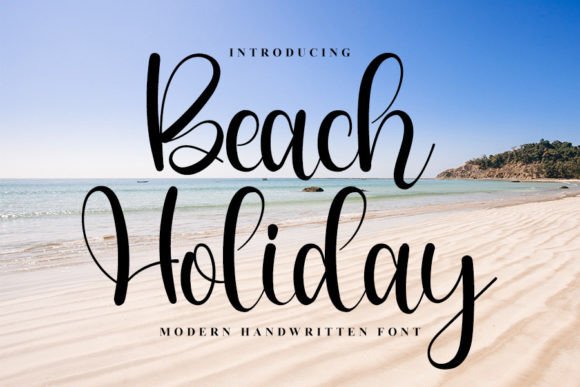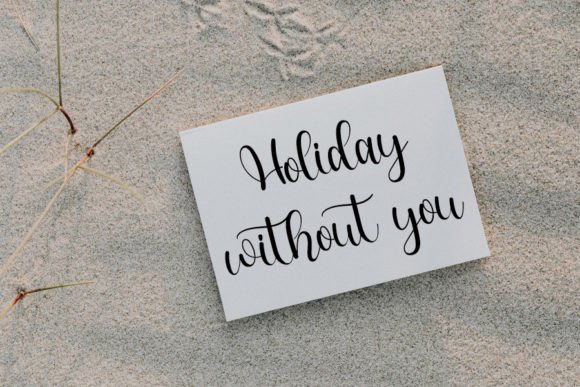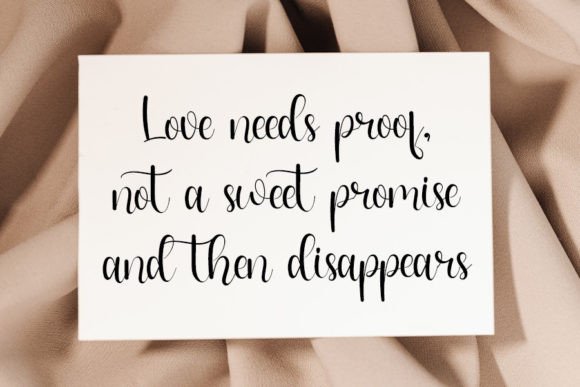
Beach Holiday Font : A Neat Handwritten Font for Timeless Elegance
Introducing Beach Holiday – a beautifully crafted handwritten font that exudes elegance and charm. This versatile typeface is perfect for a wide range of creative projects, allowing you to elevate your designs with its unique style.
Key Features of Beach Holiday Font
- Elegant Handwritten Style: Adds sophistication and authenticity to your designs
- Timeless Appeal: Captures a classic charm that resonates with audiences
- Versatile Application: Ideal for branding, invitations, posters, and more
Perfect for Multiple Design Projects
Beach Holiday’s adaptability makes it an excellent choice for:
- Branding materials that reflect your unique identity
- Elegant invitations that set the tone for special occasions
- Eye-catching posters that capture attention
- Social media graphics that engage followers
- Personal stationery and greeting cards
Enhancing Your Creative Vision
With Beach Holiday, you gain access to a font that elevates your projects to new heights of beauty and sophistication. Its handwritten elegance ensures that your content stands out, making a lasting impression on your audience.
Digital and Print Versatility
Whether you’re creating digital designs or print materials, Beach Holiday maintains its charm and readability. Use it for:
- Striking website headers that draw in visitors
- Memorable email marketing campaigns that resonate with recipients
- Distinctive product packaging that showcases your brand’s elegance
Customization Options
Beach Holiday offers a range of customization options, allowing you to tailor your text to perfectly match your creative vision. This flexibility empowers you to create designs that reflect your artistic preferences.
Beach Holiday is more than just a font; it’s a design asset that brings timeless elegance to your creative projects. Its unique handwritten style inspires captivating designs that leave a lasting impact. By incorporating Beach Holiday into your designs, you can create visually appealing and sophisticated content that engages your audience. Whether you’re an experienced designer or someone looking to add elegance to personal projects, Beach Holiday offers the perfect blend of charm and functionality. Consider pairing Beach Holiday with clean sans-serif fonts for contrast or complementing it with other script fonts for a dynamic typographic palette. This versatility allows you to create designs that are both elegant and harmonious across various mediums. Embrace the timeless beauty of Beach Holiday today and watch as it transforms your creative ideas into stunning realities!